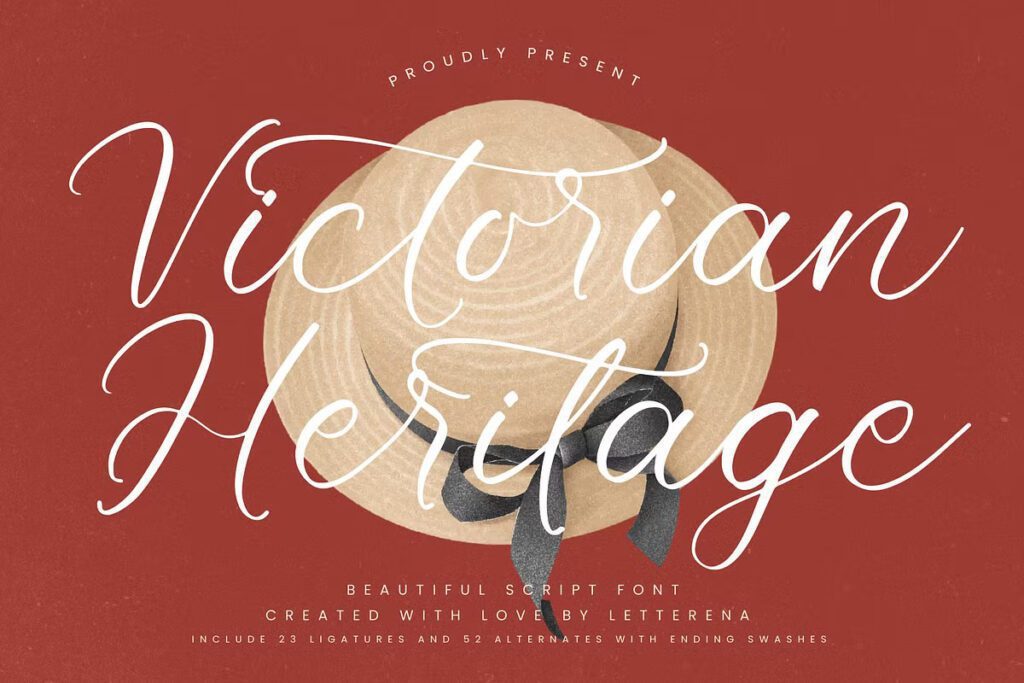
Victorian Heritage – A Beautiful Script Font for Elegant Projects
Introducing Victorian Heritage by Letterena, a luxury script font designed to bring a touch of elegance and sophistication to any project. This beautifully crafted typeface is perfect for designers seeking to create luxurious and stylish designs, from logos to homeware and product packaging.
Why Choose Victorian Heritage?
1. Elegant Script Design:Victorian Heritage offers an exquisite blend of graceful curves and fine details, making it perfect for any project that needs a luxurious, handcrafted touch. Whether you’re designing greeting cards, invitations, or branding materials, this font adds a refined elegance to your work.
2. Versatile and Flexible:With uppercase and lowercase characters, numerals, punctuation, and multilingual support, Victorian Heritage is ideal for a wide range of projects, from book covers and t-shirts to posters and photography watermarks. Its included ligatures and stylistic alternatives allow for enhanced creativity, ensuring your designs are unique and beautiful.
Key Features of Victorian Heritage:
Luxury Script Font with elegant, handcrafted curves.
Multilingual Support for global projects.
Ligatures & Stylistic Sets for a customized and creative approach.
Perfect for logos, branding, mugs, quotes, shopping bags, name cards, and more.
Enhance Your Design Projects with Victorian Heritage
With Victorian Heritage, your designs can exude luxury, style, and timeless elegance. Whether for special events, product packaging, or high-end branding, this font helps make a statement of sophistication.